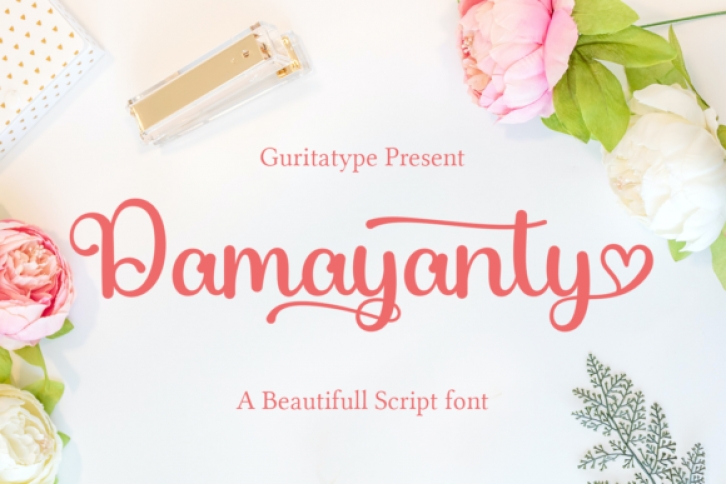
Damayanty is a smooth, elegant and flowing handwritten font. Not too thin and not too thick, balanced and varied, Damayanty was designed to enhance the beauty of your projects.